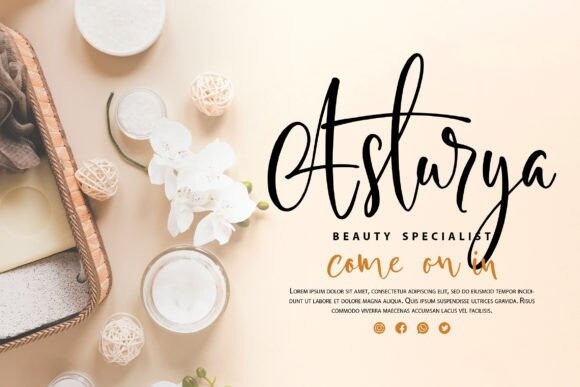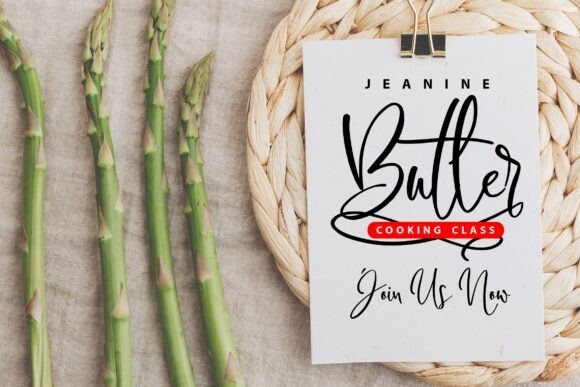
Kelpshake Font
Kelpshake – Digital Handwriting script font with a calligraphy style. It will look so beautiful on invitations like greeting cards, branding materials, business cards, quotes, posters, and more! This font is PUA encoded, which means you can access all of the glyphs and swashes with ease!